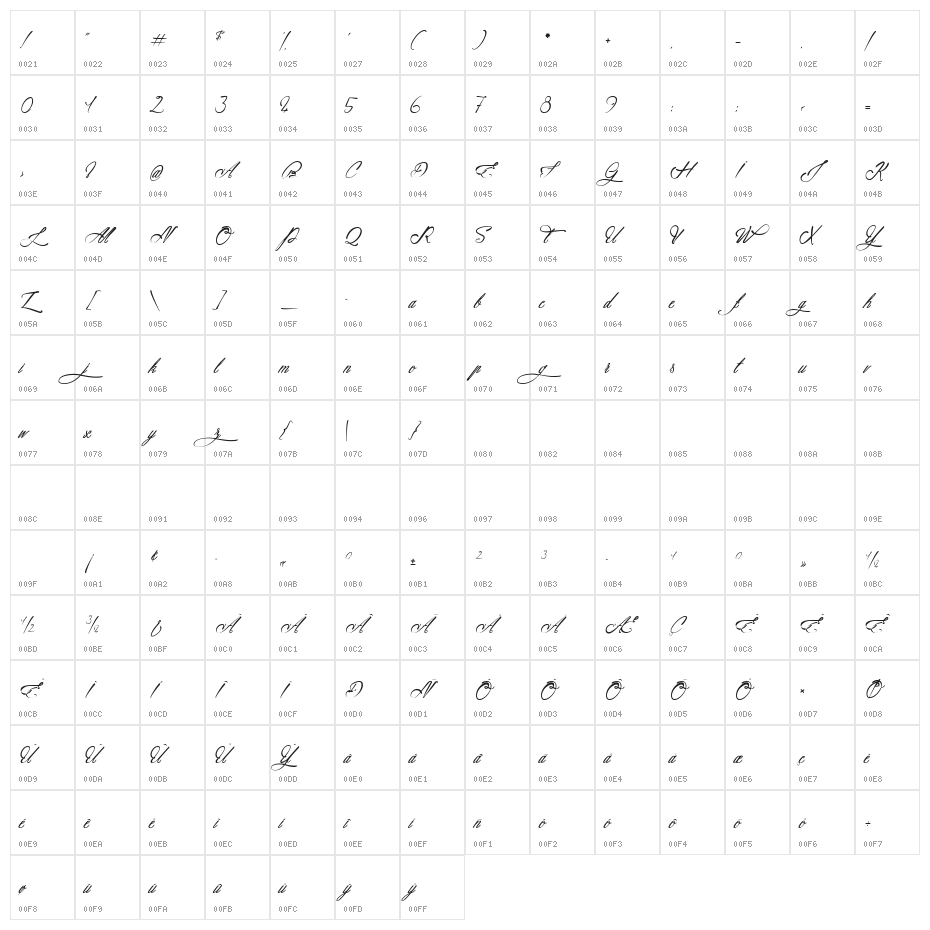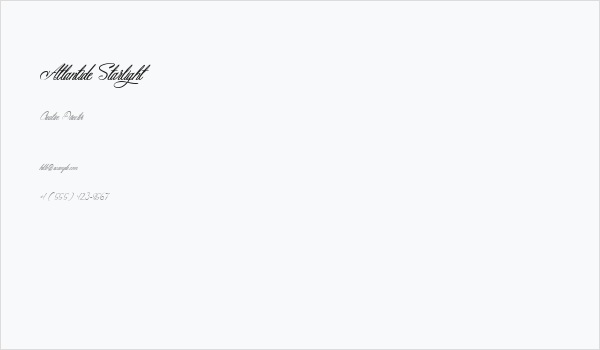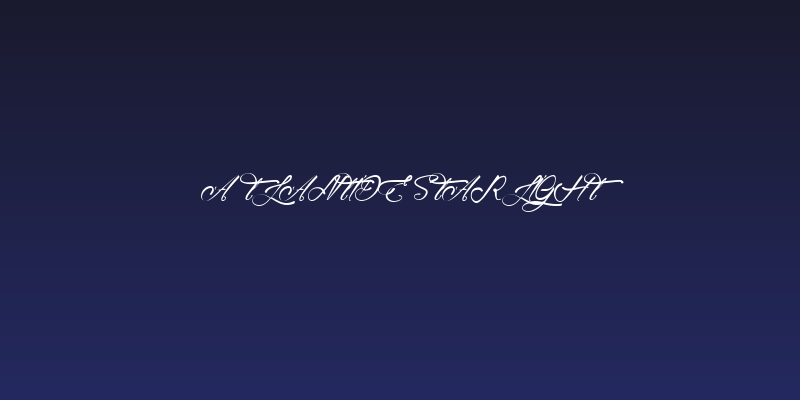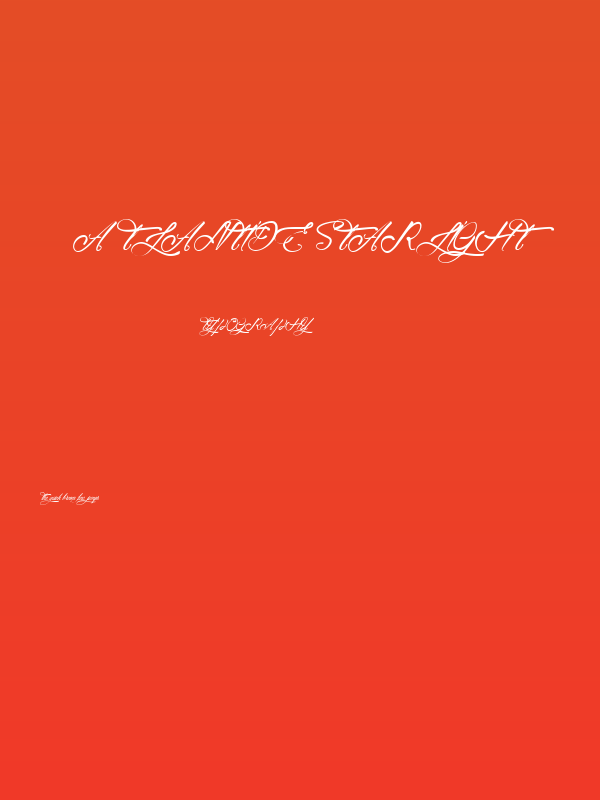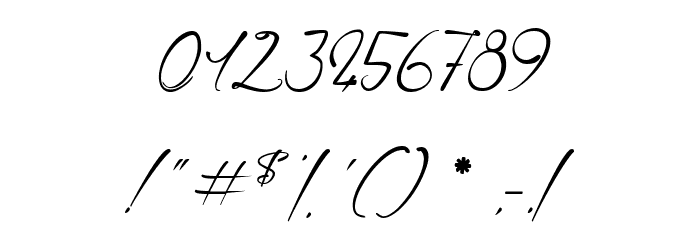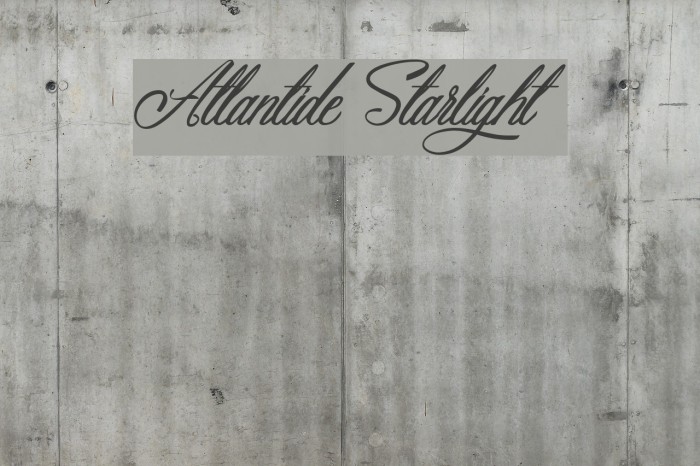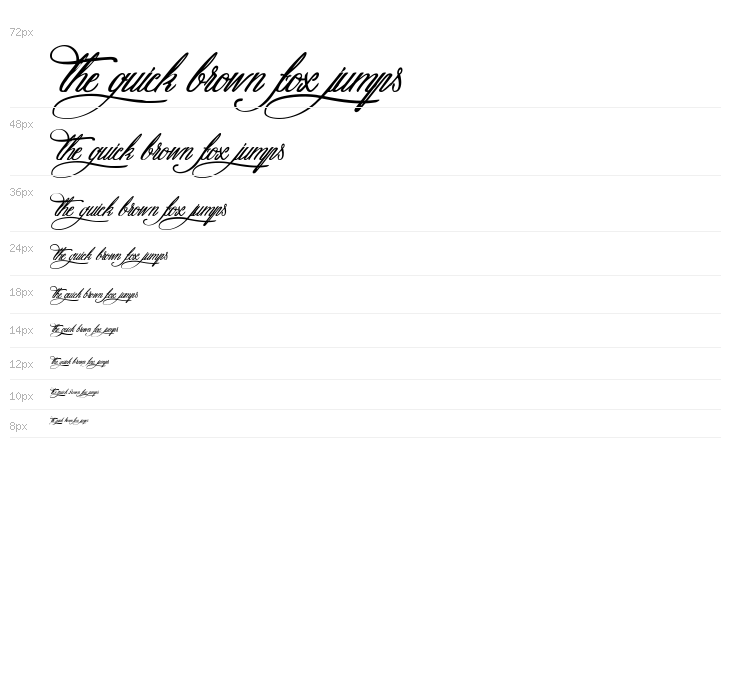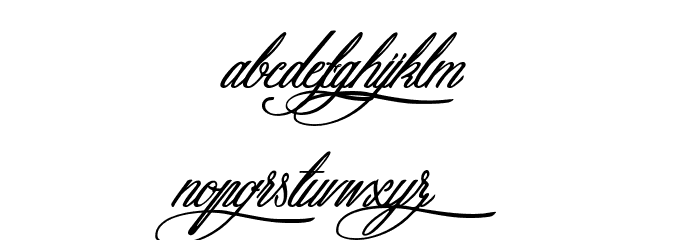
Atlantide Starlight Font
Atlantide Starlight Description
This elegant script font features flowing, interconnected letters with a classic calligraphic style. The uppercase letters are ornate, with elaborate swashes and flourishes that give a sense of sophistication and grace. The lowercase letters maintain a consistent flow, enhancing readability while preserving the decorative nature of the script. Numbers and special characters are designed to match the overall aesthetic, with a touch of flair that complements the alphabet. The font's delicate lines and curves create a harmonious balance, making it suitable for formal and decorative applications.
| Use Case | Logos, Invitations, Decorative Text |
| Proposed Projects | Ideal for wedding invitations, elegant branding, greeting cards, and luxury packaging. |